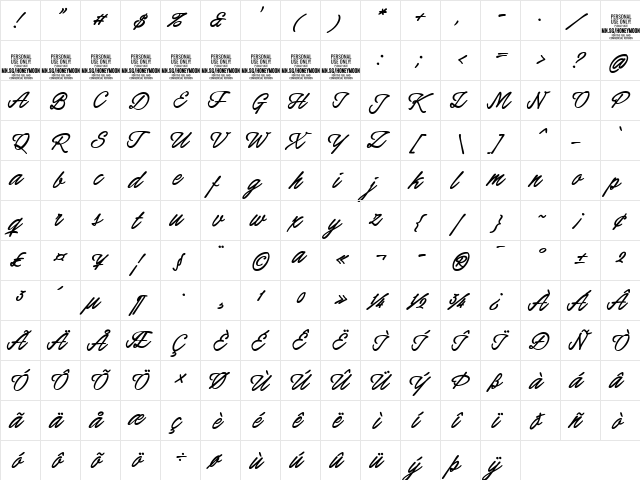
Honeymoon Bold PERSONAL USE Regular
Design Context for Honeymoon Bold PERSONAL USE Typeface
Honeymoon Bold PERSONAL USE is a composed and adaptable typeface that performs quietly and consistently across a wide range of design contexts. Its bold stroke weight gives it real presence on the page.